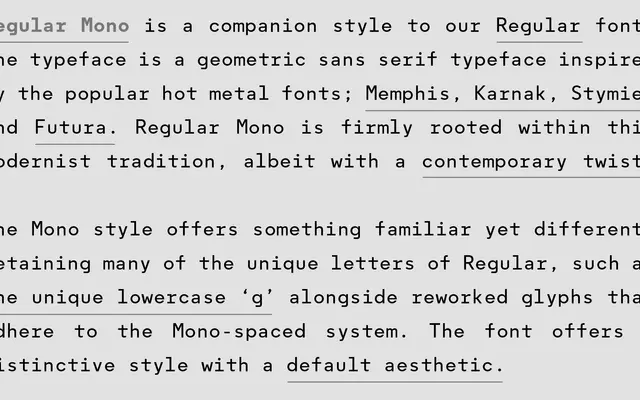
Regular Mono
A monospaced companion to A2-Type's Regular, drawing on Futura, Memphis and Stymie to bring geometric hot-metal warmth to a fixed-width format.
Reworked from the Regular family's geometric skeleton, it adapts distinctive characters such as the double-storey lowercase 'g' to suit a monospaced grid. Seven weights run from Light to Black, each with a matching italic, giving it a broad range for both UI and editorial use. The fixed-width structure sits within a modernist lineage while remaining practically neutral enough for screen and print.
A monospaced geometric sans inspired by hot metal faces including Futura, Memphis and Stymie, placing it firmly in the geometric tradition adapted for fixed-width use.